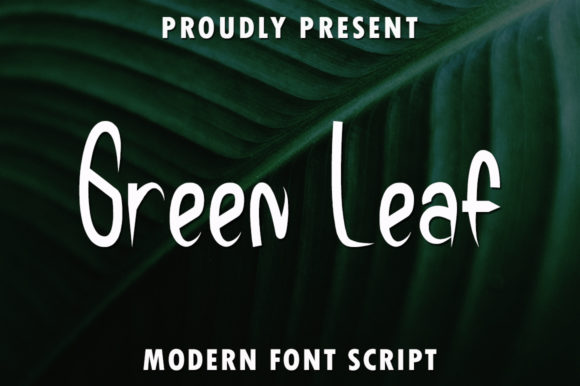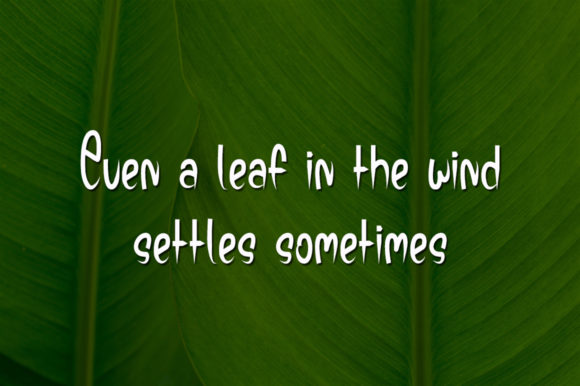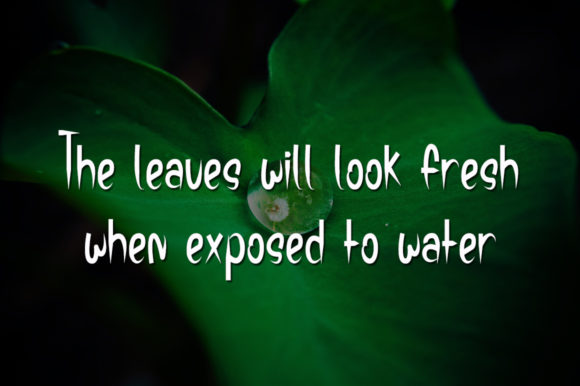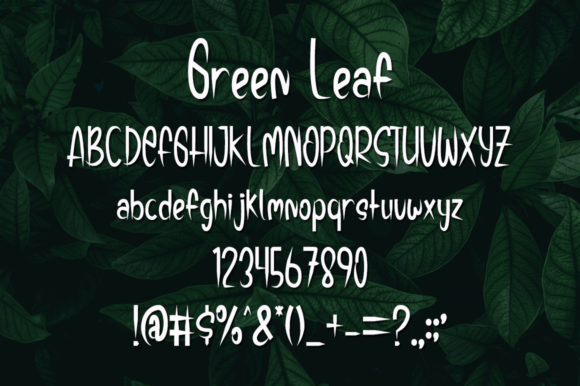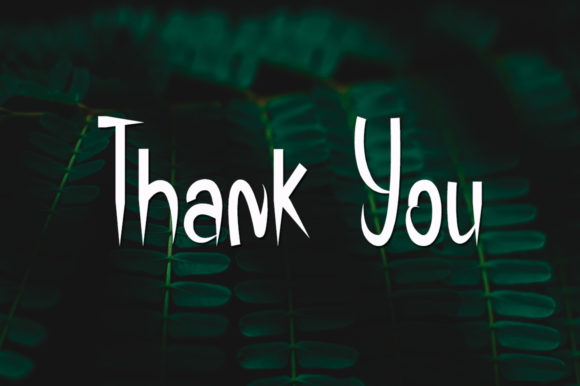
Green Leaf Font
About Green Leaf Font
Green Leaf is a simple and friendly handwritten font. Fall in love with its completely different and timeless style and use it to create spectacular designs!